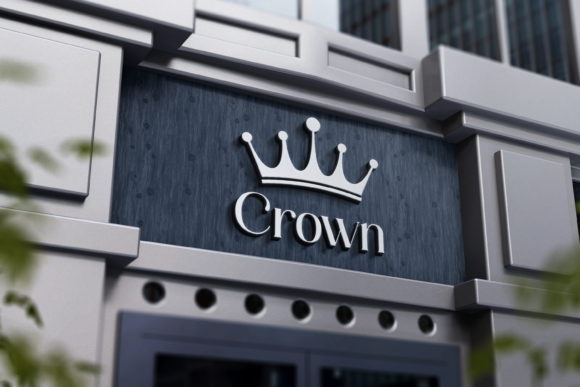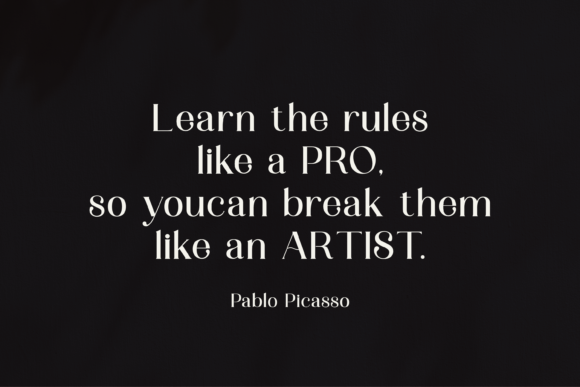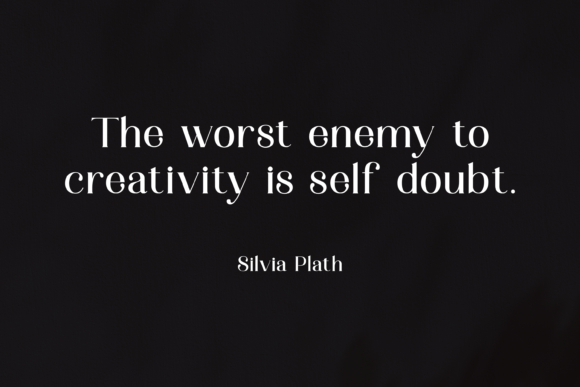
Introduction to Salva Avauger Font
As designers, we’ve all been there – staring at a blank canvas, trying to bring our creative vision to life. The right font can be the missing piece that sets our project apart, and that’s exactly what the Salva Avauger Font delivers. This classic and assertive serif font is a game-changer for any design project, adding a touch of sophistication and elegance that’s hard to resist.
Whether you’re working on a high-end brochure or a free download for a creative project, the Salva Avauger Font is an invaluable design resource that’s sure to elevate your work. With its high-quality design and transparent background, it’s the perfect choice for designers who want to make a statement without sacrificing style.
So, what makes the Salva Avauger Font so special? In this article, we’ll dive into the details of this amazing font and explore why it’s a must-have for any designer’s library.
Key Features of Salva Avauger Font
- Unique and stylish font with a transparent background, perfect for adding a touch of elegance to any design.
- Includes a range of glyphs and characters to cater to diverse design needs.
- Supports various languages, including English, Spanish, French, and many more, making it a versatile design solution.
Honest Review: Salva Avauger Font
As a designer, I’m always on the lookout for high-quality design resources to elevate my creative projects. The Salva Avauger Font is one such find that caught my attention.
- ✨ High-quality design: The Salva Avauger Font is beautifully crafted, with precise lettering and attention to detail.
- ✨ Versatile: The font is suitable for a wide range of creative projects, from logos to brochures.
- ⚠️ Limited font sizes: The font may not be as effective at larger font sizes, which could be a drawback for certain projects.
- ⚠️ Not ideal for transparent backgrounds: The font’s design may not work well with transparent backgrounds, which could be a limitation for designers working on web-based projects.
Overall, the Salva Avauger Font is a solid addition to any designer’s toolkit. While it may have some limitations, its high quality and versatility make it a great resource for a wide range of creative projects.
The Salva Avauger Font is a high-quality design resource that can be used in various creative projects. It is available for free download and comes with a transparent background, making it versatile for different design applications.
The Salva Avauger Font is ideal for various design projects, including:
- Social media graphics and posts.
- Presentations and slides.
- Logos and branding materials.
- Business cards and stationery.
Alternatives to Salva Avauger Font
Lato is a popular sans-serif font that is perfect for modern design projects. It’s free to download and offers high-quality typography for creative projects. Use Lato for headings and body text in your design.
Lato is similar to Salva Avauger Font in terms of its clean and minimalist design, but it has a more modern and sleek feel to it. Lato is also highly customizable, making it a great choice for designers who want to add a personal touch to their work.
Montserrat is a geometric sans-serif font that is designed for use in digital media. It’s a great choice for designers who want a font with a modern and urban feel. Montserrat is available for free download and offers high-quality typography for creative projects.
Does the Salva Avauger Font have a transparent background?
Yes, the Salva Avauger Font has a transparent background, making it easy to use in design projects that require a transparent or semi-transparent font. This feature is particularly useful for designers who need to create visually appealing and professional-looking designs.